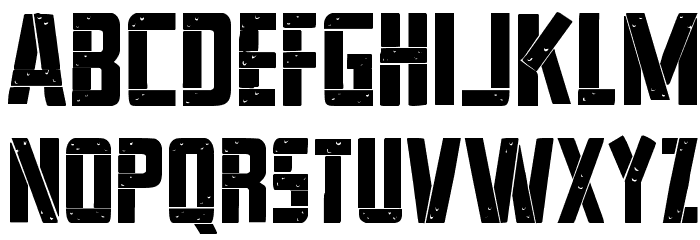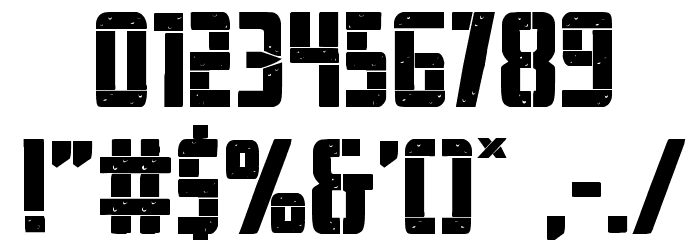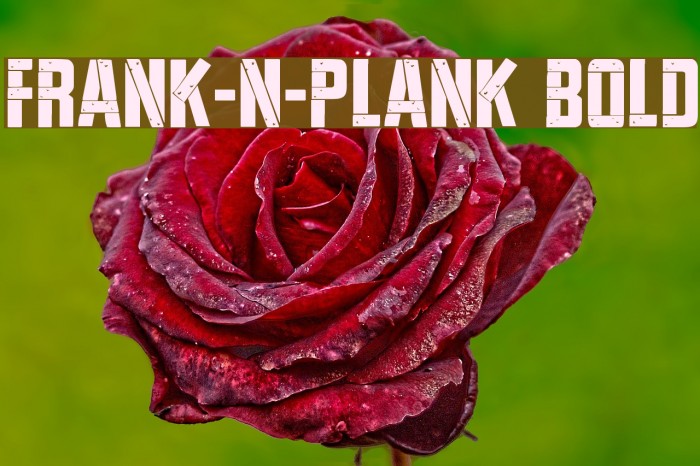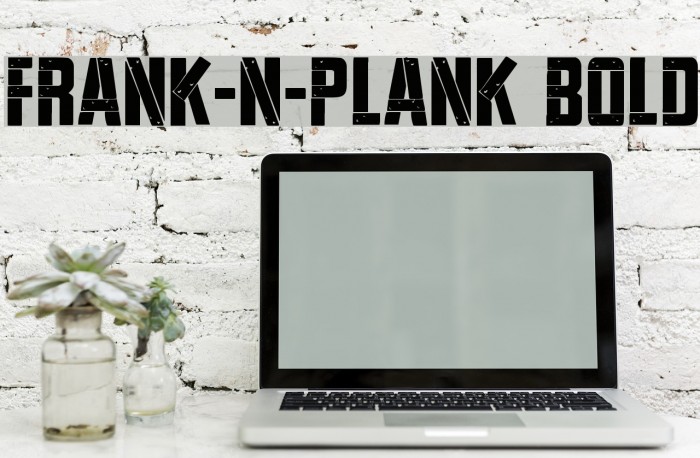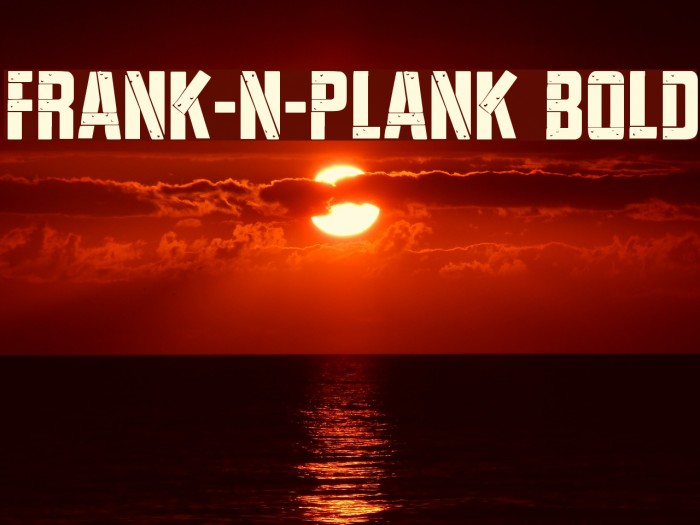
Frank-n-Plank Bold Font
This font features a bold and industrial design with a distressed texture that gives it a rugged, worn appearance. The characters are blocky and geometric, with sharp angles and straight lines that convey a sense of strength and durability. The distressed texture is consistent across all characters, adding a unique, vintage feel. The uppercase and lowercase letters maintain a uniform height, contributing to a cohesive look. Numbers and special characters follow the same stylistic approach, ensuring versatility in various design applications.
A bold, industrial font with a distressed, vintage texture.
- Font: Frank-n-Plank Bold
- Proposed Projects: Ideal for branding projects, posters, and designs that require a strong, industrial aesthetic. Suitable for logos, packaging, and apparel design.
- Overall Style: Vintage, Industrial